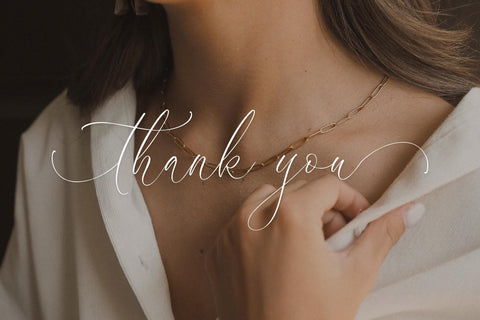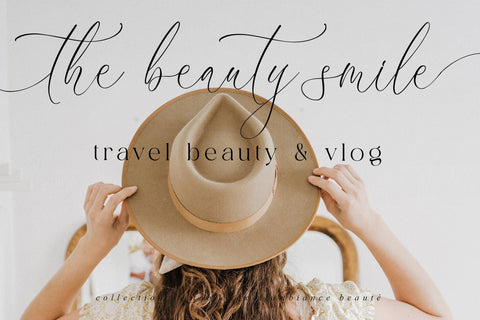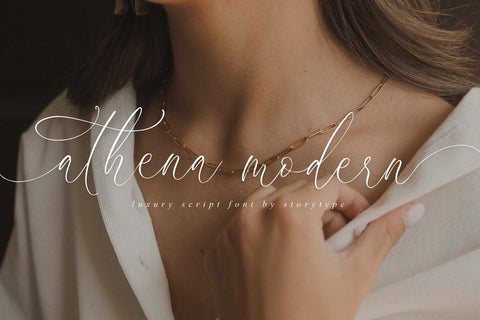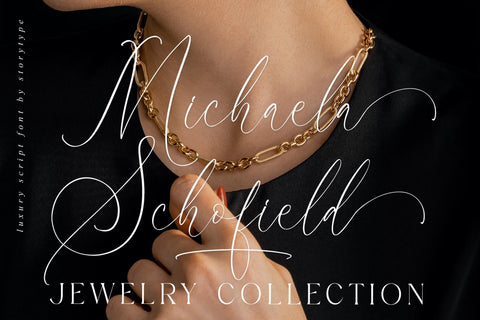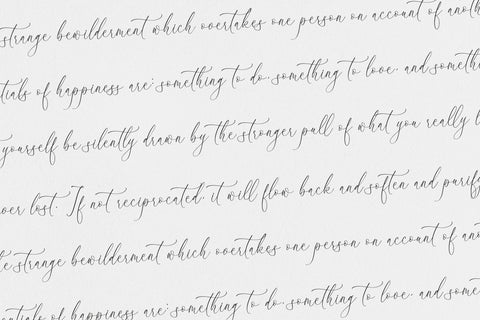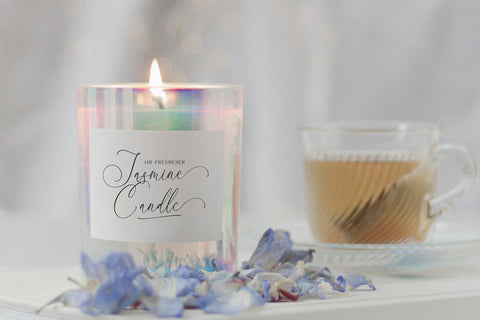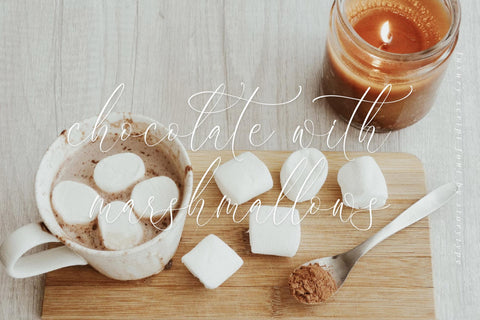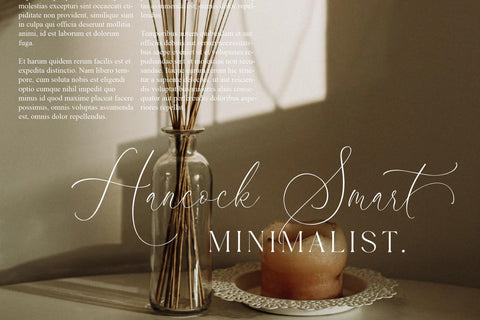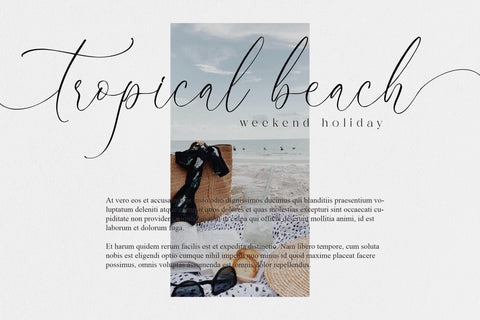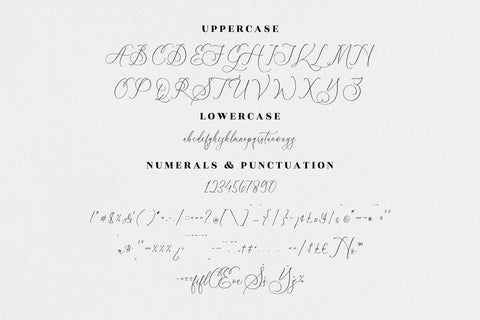
athena modern Luxury Script Font
Proudly present athena modern Luxury Script Font , created by Storytype,
A luxury script that has own unique style & modern look.